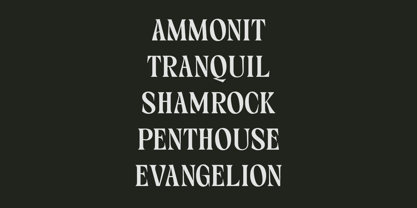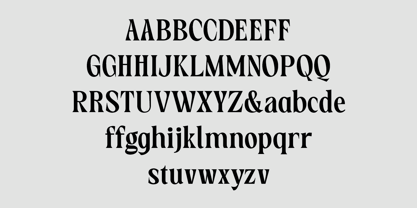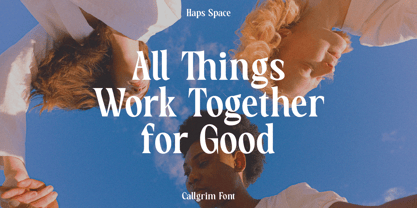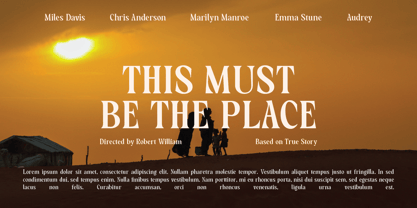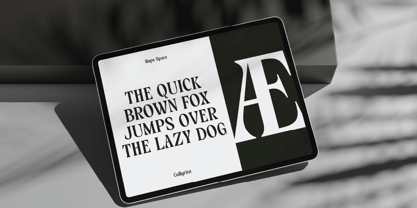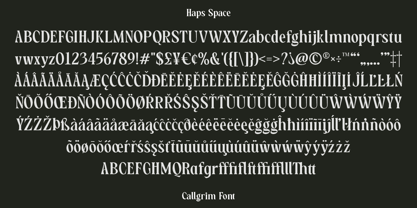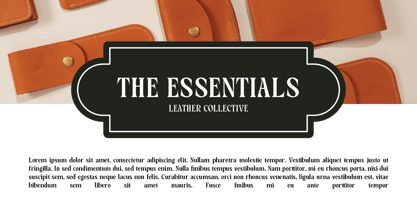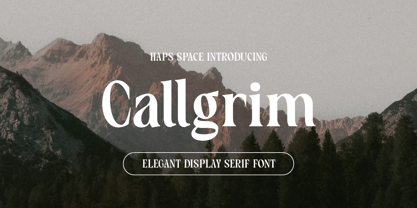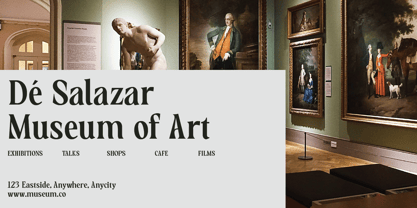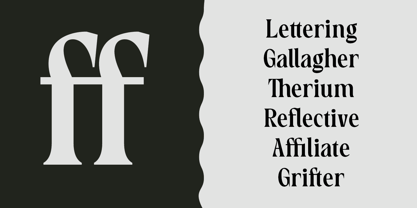
HS Callgrim Serif Display
by Haps Space
The HS Callgrim Serif Display Font Family was designed by Haris Purnama Putra, Egi Ahmad Mufid and published by Haps Space. HS Callgrim Serif Display contains 1 styles.
Callgrim - Serif Display Font is Serif Display Font comes with alternatives and ligatures, helps to create stunning Posters, Branding, Tshirt, Social Media Graphics and much more.
Designers: Haris Purnama Putra, Egi Ahmad Mufid
Publisher: Haps Space
Foundry: Haps Space